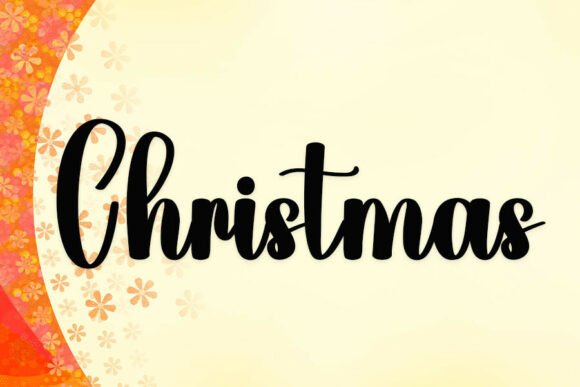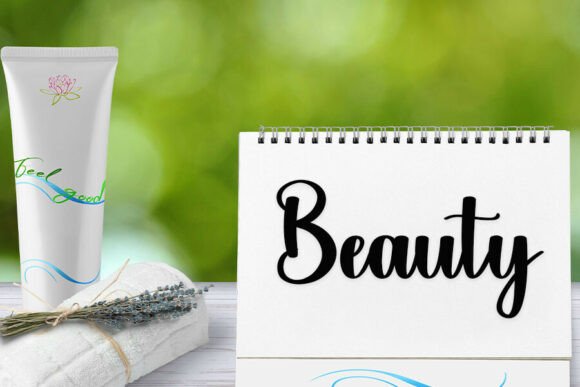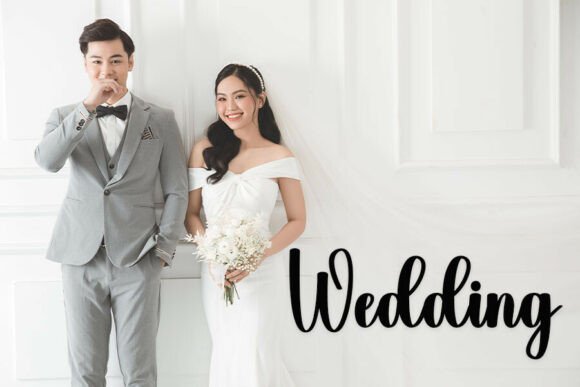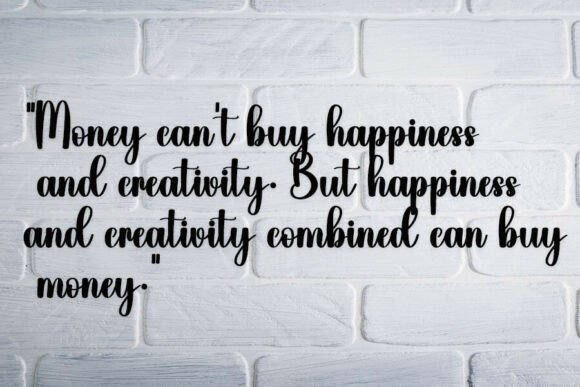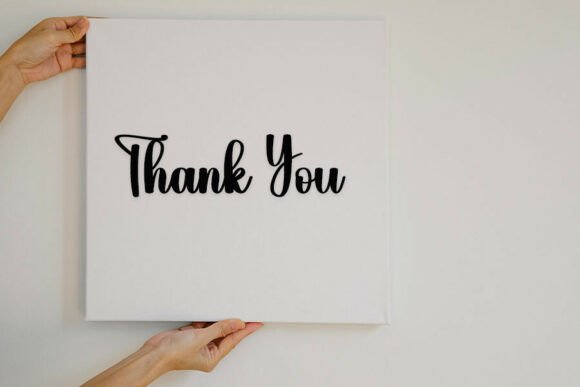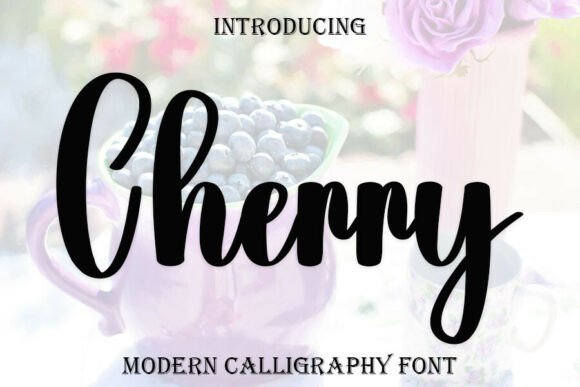
Introducing Cherry Font: The Sweet and Elegant Handwritten Font
Are you looking for a font that can add a touch of sweetness and romance to your designs? Look no further than Cherry Font, a beautiful cursive handwritten font that is perfect for a variety of design projects. With its gentle and elegant curves, Cherry Font is sure to make your designs stand out and leave a lasting impression.
What Makes Cherry Font Special?
Cherry Font is a unique and versatile font that can be used for a wide range of design ideas. Its cursive handwritten style gives it a personal and friendly feel, making it perfect for designs that require a touch of warmth and personality. Whether you’re working on a branding project, creating a logo, or designing a wedding invitation, Cherry Font is sure to add a touch of elegance and sophistication.
Cherry Font is a versatile font that can be used for a variety of design projects, including:
- Branding: Use Cherry Font to create a unique and memorable brand identity that stands out from the crowd.
- Logo Design: Create a beautiful and elegant logo that showcases your brand’s personality and style.
- Wedding Designs: Add a touch of romance and elegance to your wedding designs, including invitations, programs, and decorations.
- Greeting Cards: Create beautiful and heartfelt greeting cards for special occasions, such as birthdays, anniversaries, and holidays.
- Fashion and Lookbook: Use Cherry Font to add a touch of elegance and sophistication to your fashion designs and lookbooks.
- Marketing Promotion: Create eye-catching marketing materials, such as brochures, flyers, and posters, that showcase your brand’s personality and style.
Why Choose Cherry Font?
There are many reasons why Cherry Font is a great choice for your design projects. Here are just a few:
- Elegant and Sophisticated: Cherry Font has a elegant and sophisticated feel that is perfect for designs that require a touch of luxury and refinement.
- Cursive and Handwritten: The cursive and handwritten style of Cherry Font gives it a personal and friendly feel that is perfect for designs that require a touch of warmth and personality.
- Versatile: Cherry Font is a versatile font that can be used for a wide range of design projects, from branding and logo design to wedding designs and greeting cards.
- Easy to Read: Cherry Font is easy to read, even at small sizes, making it perfect for designs that require a lot of text.
Tips for Using Cherry Font
Here are a few tips for using Cherry Font in your design projects:
- Use it as a Headline Font: Cherry Font is perfect for use as a headline font, where its elegant and sophisticated feel can really shine.
- Pair it with a Sans-Serif Font: Pair Cherry Font with a sans-serif font, such as Arial or Helvetica, to create a beautiful and elegant contrast.
- Experiment with Different Sizes: Experiment with different sizes of Cherry Font to create a hierarchy of text that really stands out.
- Use it for Body Text: While Cherry Font is perfect for headlines, it can also be used for body text, especially in designs where a personal and friendly feel is required.
In conclusion, Cherry Font is a beautiful and elegant handwritten font that is perfect for a variety of design projects. Its cursive and handwritten style gives it a personal and friendly feel, making it perfect for designs that require a touch of warmth and personality. With its versatility, elegance, and sophistication, Cherry Font is sure to become a favorite among designers and crafters. So why not give it a try and see how it can add a touch of sweetness and romance to your designs?